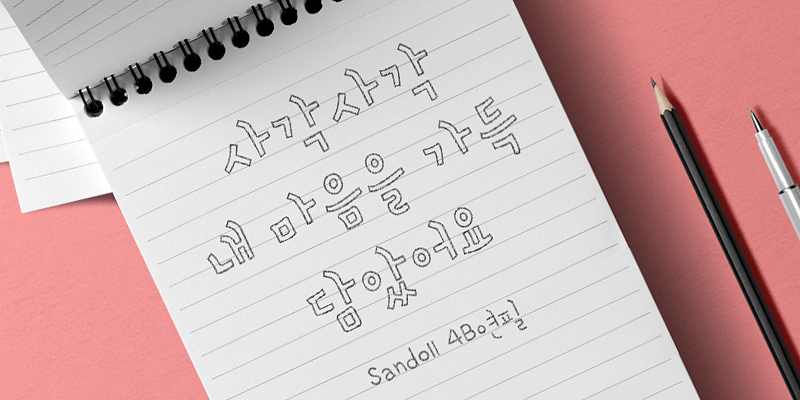
Sandoll 4BYeonpil is an analogue-type font that looks as if it is written with a pencil.
The font gives not only free-flowing, relaxed serif feeling, but modern and elegant feeling with its unique module.
Sandoll (산돌) is a leading font foundry in Korea. It has been developing nearly 600 fonts for about 40 years. The foundry has a variety of experiences of multi-language projects such as CJK development and matching Korean and other scripts.